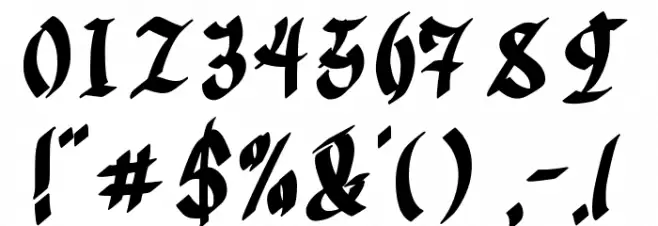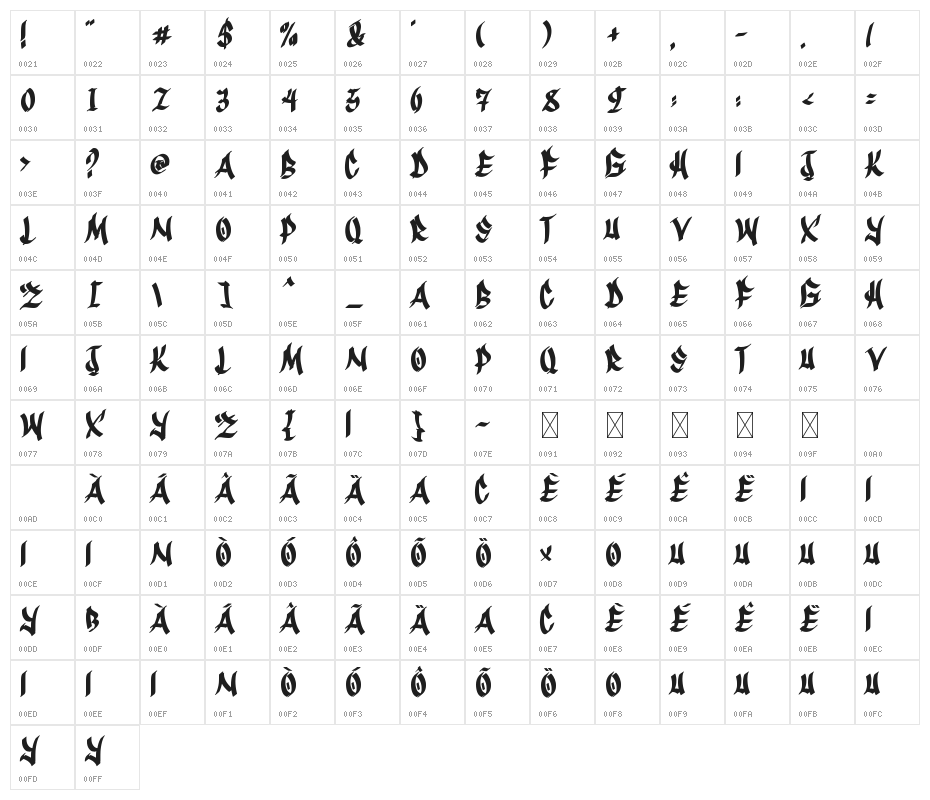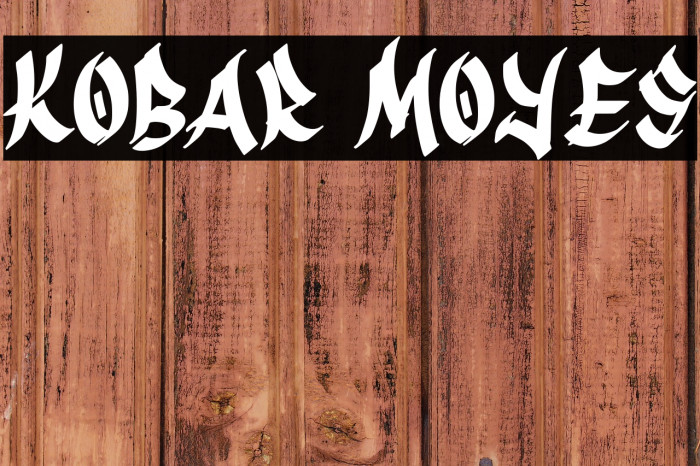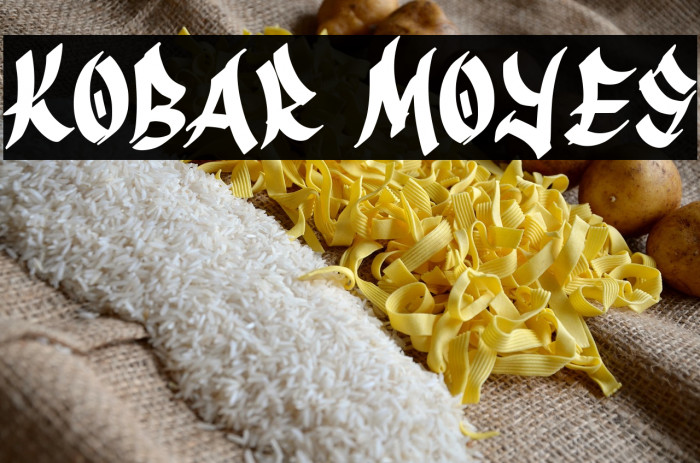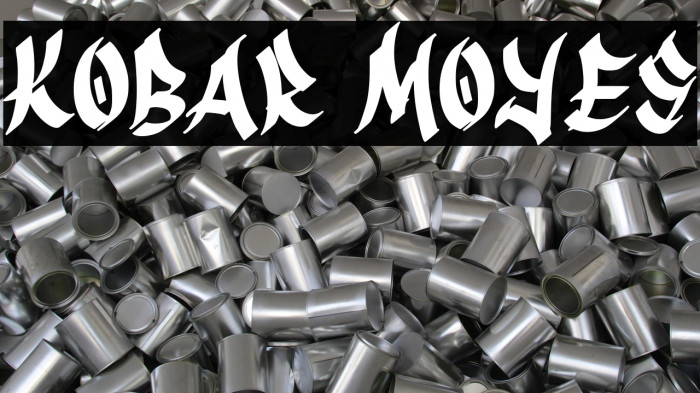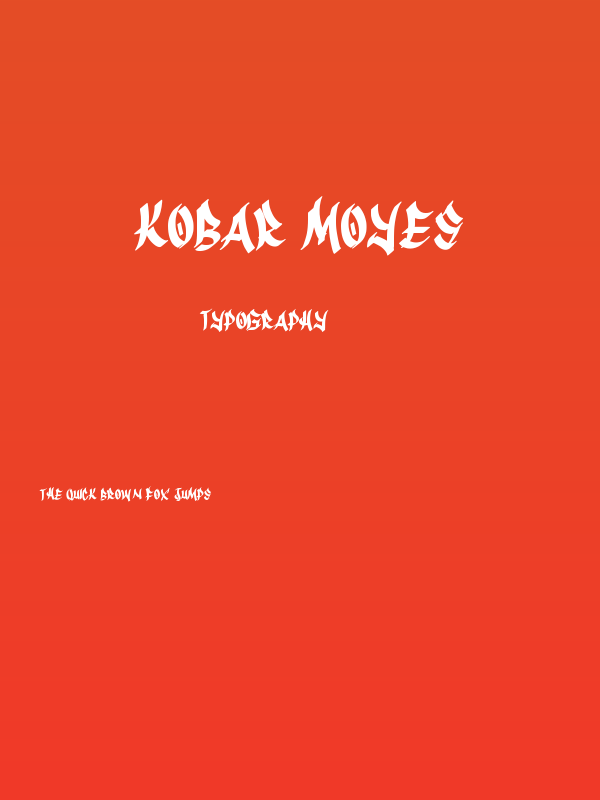
Kobar Moyes Font
Kobar Moyes Description
This font is a bold and striking blackletter style, characterized by its sharp, angular lines and dramatic flourishes. The uppercase and lowercase letters maintain a consistent style, with a strong emphasis on vertical strokes and pointed serifs. The numbers and special characters follow the same aesthetic, providing a cohesive look across all glyphs. The overall appearance is reminiscent of traditional Gothic scripts, yet it maintains a modern edge with its clean execution and bold presence.
A bold, angular blackletter font with dramatic flourishes from Uncategorized fonts.
- Proposed Projects: Ideal for projects requiring a strong, historical aesthetic such as event posters, book covers, or branding for products with a vintage or gothic theme.